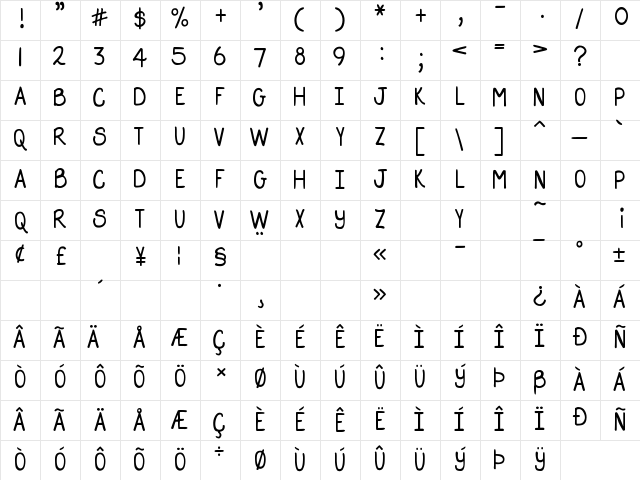
DJB Straight Up Now Bounce Regular
Design Context for DJB Straight Up Now Bounce
DJB Straight Up Now Bounce is a composed and adaptable typeface that performs quietly and consistently across a wide range of design contexts.